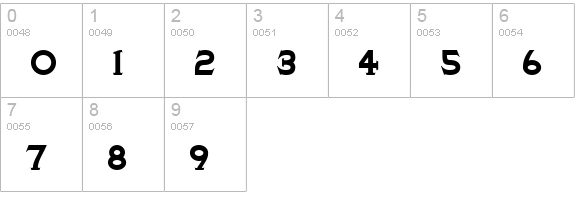
TinplateTitlingBlack Font Details
TinplateTitlingBlack is an elegant and sophisticated font that exudes a sense of timeless beauty. Its bold and sharp letterforms are meticulously crafted to capture attention and make a lasting impression. With its sleek lines and confident presence, this font is perfect for creating striking headlines, titles, and logos that demand attention. The TinplateTitlingBlack font is designed with precision and attention to detail, resulting in a typeface that is visually stunning and highly versatile. Its clean and minimalist design allows it to effortlessly complement any design project, whether it be for print or digital media. One of the most remarkable aspects of the TinplateTitlingBlack font is that it is available for free download at FontsMarket.com. This means that designers and creatives from all walks of life can enjoy the beauty and functionality of this font without any cost. Its availability on FontsMarket.com ensures that it is easily accessible to anyone in need of a powerful and impactful typeface. Whether you are working on a branding project, advertising campaign, or simply looking to add a touch of sophistication to your designs, the TinplateTitlingBlack font is a fantastic choice. Its bold and commanding presence, coupled with its timeless beauty, will undoubtedly elevate your designs to new heights. Download the TinplateTitlingBlack font today from FontsMarket.com and experience the power of this exceptional typeface for yourself.